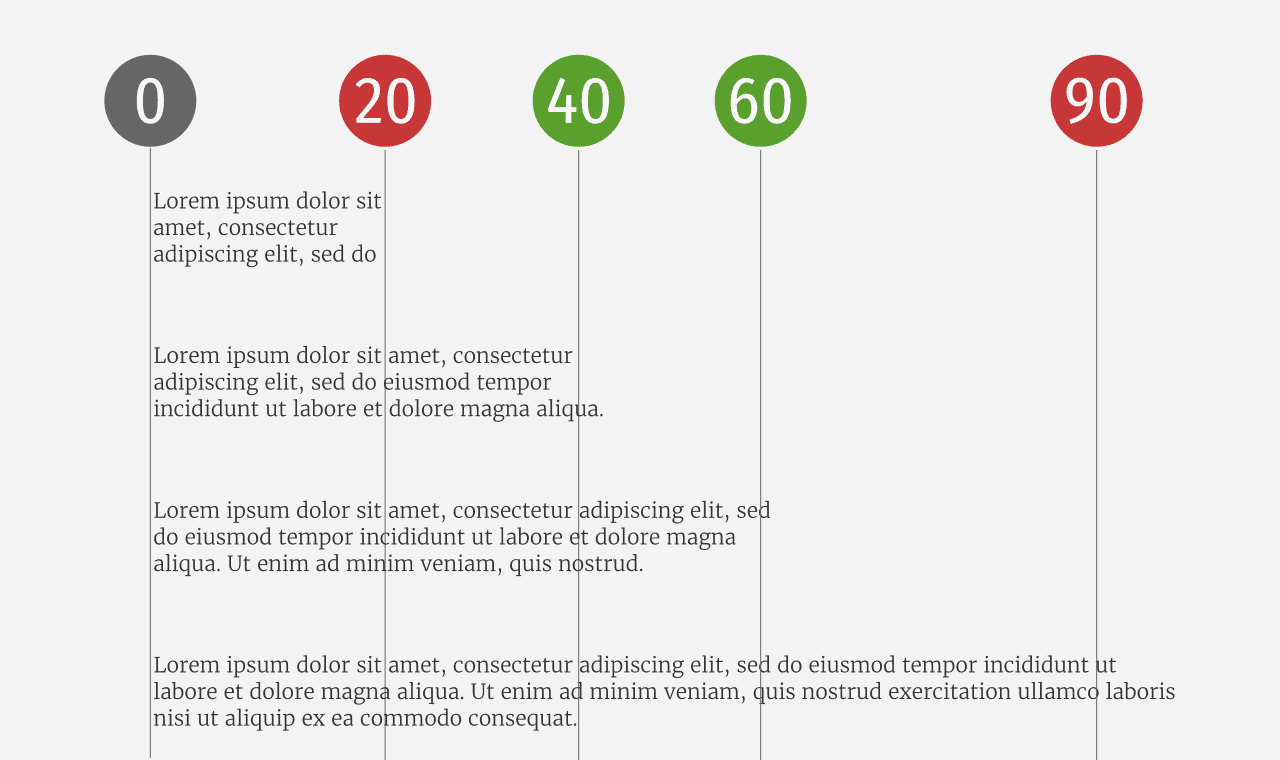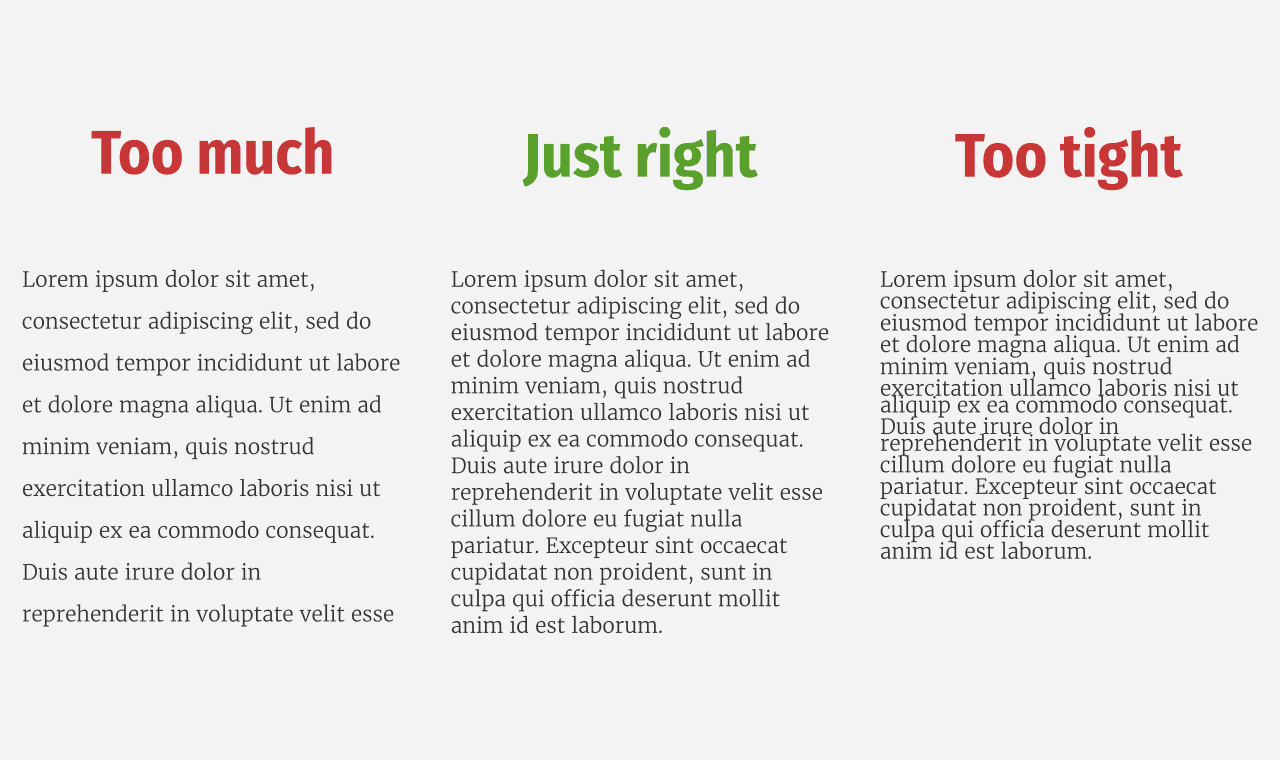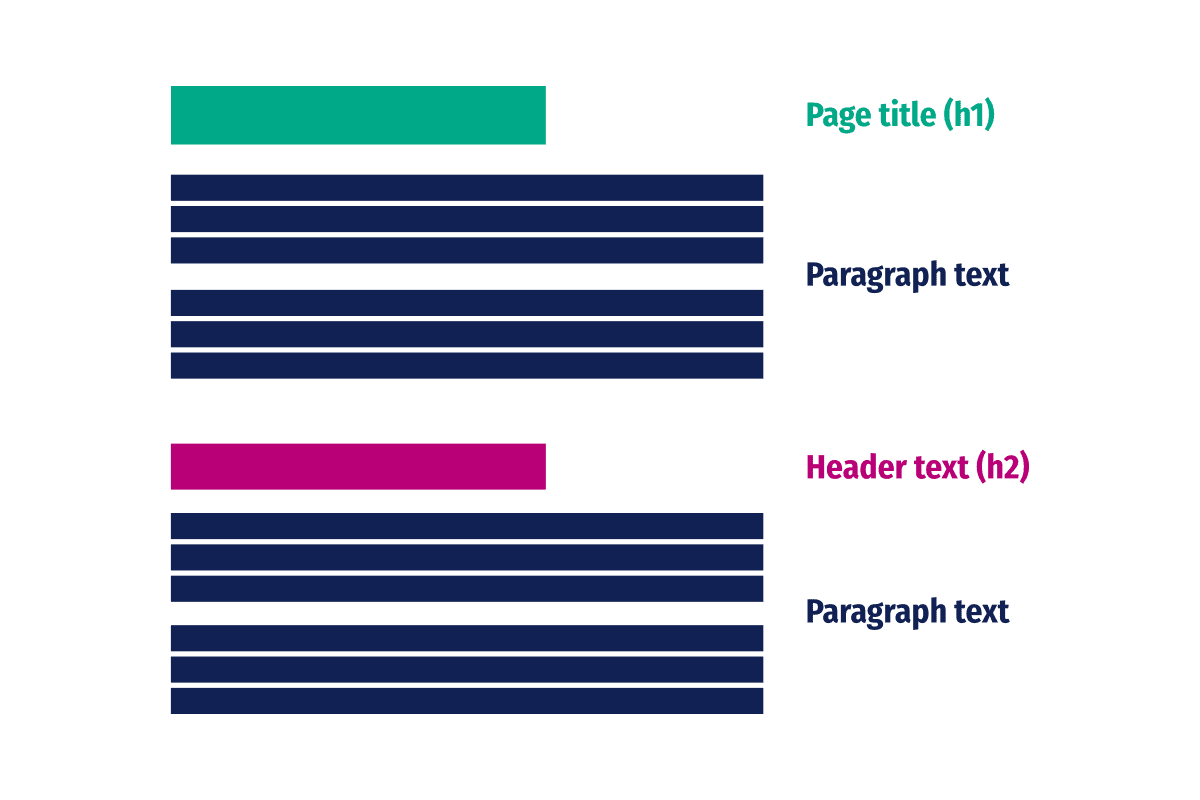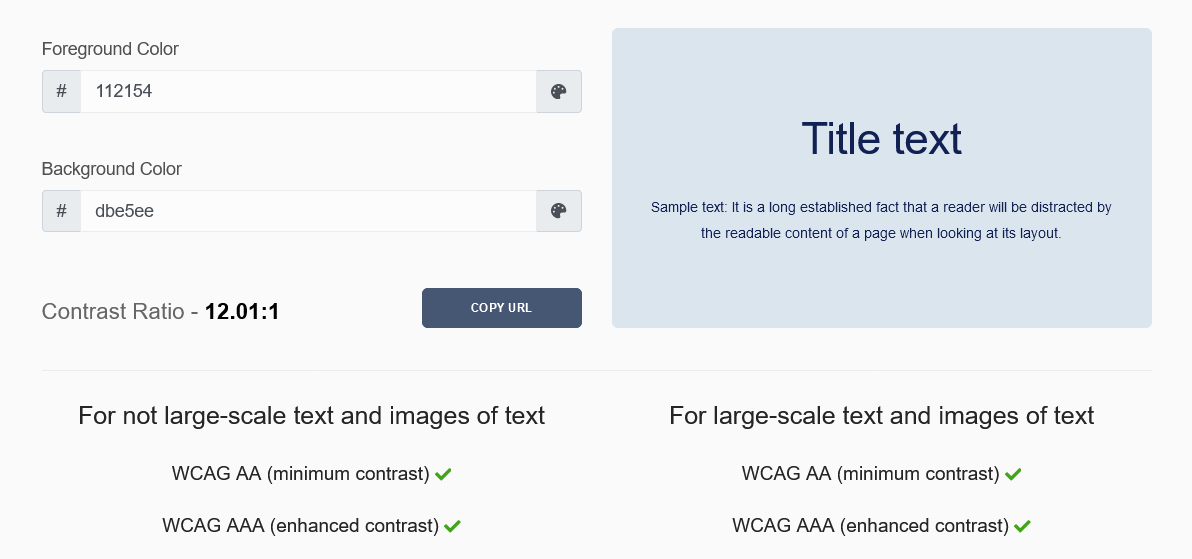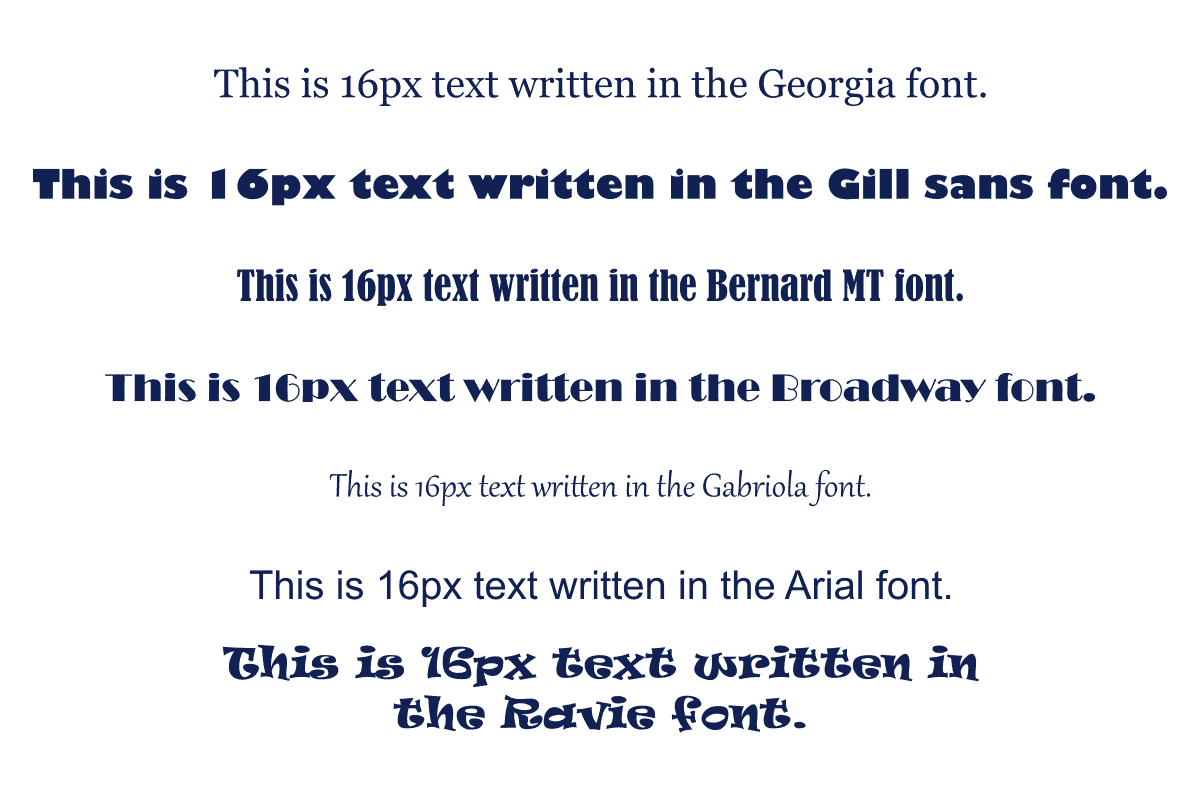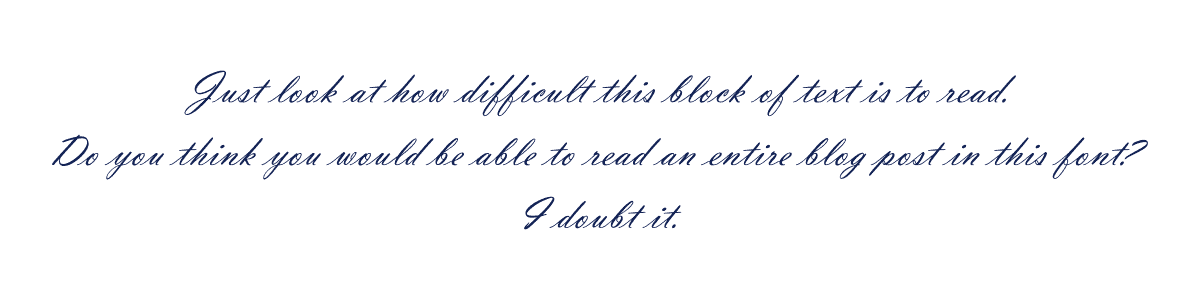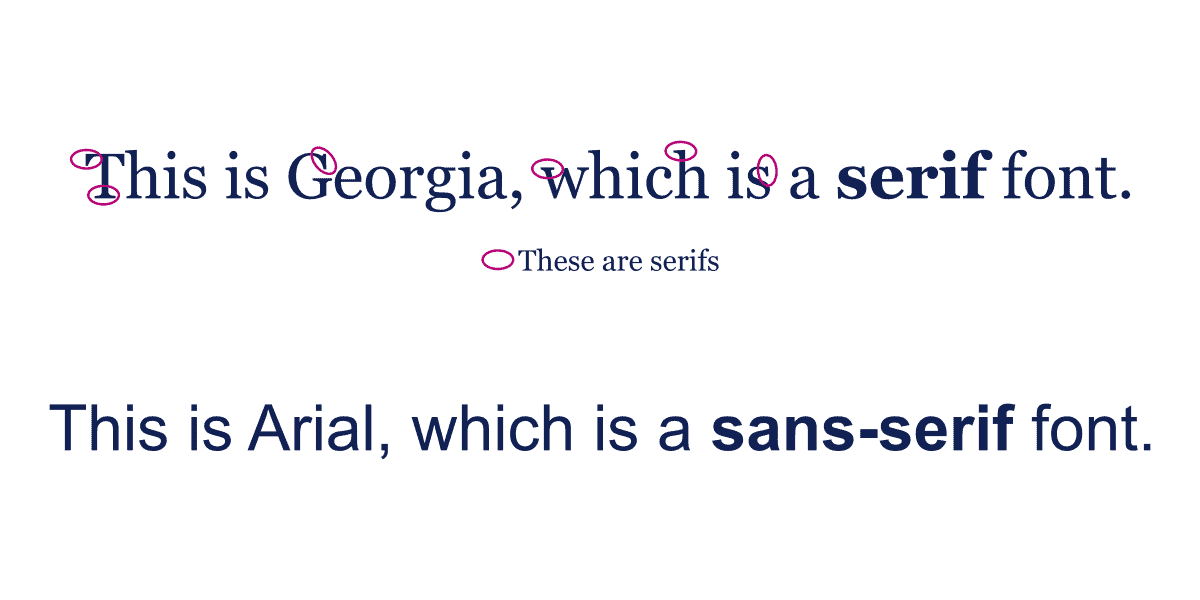
What’s In A Font? Website Typography Best Practices
I love web design and website typography is a huge part of that. It turns out that I'm somewhat of a typography nerd, so I wanted to share some of what I've learned in this regard here.
What is website typography?
Many people think that typography simply means the font (or font family) you choose for your website. But it’s much more than that. It’s the weight of the text, the width of the lines, the gaps between those lines. Basically it’s every facet of the text on your site.
Choosing the right font for your website is incredibly important, especially if your site has long form written content, like a blog. Those fonts will be seen by every one of your visitors to consume your content.
Type is the clothes your words wear.
I’ve tried to make the typography on this site the best it can be for an amateur like myself, but there’s definitely more I can do. Anyway, let’s start digging into the nuts and bolts of website typography, shall we?
Visual Hierarchy
Visual hierarchy is all a about arranging the different elements on a page so that readers can easily navigate their way around.
You have a gap between each line (known as line-height or leading), then a slightly larger gap between each paragraph. When using headings, it’s good to have an slightly larger gap at the top so that the heading breaks the content up into separate sections.
Here’s a diagram that explains what I mean in a more visual way:
As you can see the title, lines, paragraphs and section header are all distinct. Because of this, the page is naturally broken up into separate parts, which makes things flow better for the reader.
Visual hierarchy also helps with skim reading. Not many people read an entire post word for word; many skim through and pick the parts that are pertinent to them. By carving your posts up in this way you’re making skim reading much easier.
Distinguishing headers
It’s important to distinguish between your body text and header text. You can do this in a number of ways, some sites use a different font family (more on that later); whereas others, like me, use the same font everywhere, but use a different weight for headers.
By making the headers much larger than the body font, and a heavier weight, it’s easy to distinguish between the body text and headers, even though I’m using the same font everywhere.
By the way, if you’re interested, I’m using Fira Sans Condensed on this site.
Choosing the right fonts
Choosing the right fonts for your website typography is extremely important. If you get them wrong your content will not only look bad, but your readers will find it difficult to read.
If you get this really wrong, you could actually be damaging your reader’s eyes. So yeah, it’s pretty important.
Serif vs sans serif
So what is the difference between serif and sans serif when we’re talking about fonts?
Well, serifs are the little embellishments that you see at the end of some letters. The word “sans” is French for “without”. So sans serif literally means fonts without serifs.
So should I use serif or sans serif for my content?
That’s a great question, dear reader. And the answer is use whatever you like. From the research I’ve done, there doesn’t appear to be any hard and fast rules about which style of font is better for websites.
Want to use one of each? Go for it. Want to use all serif? Be my guest. Is all sans serif more your bag? Do it. It’s completely up to you.
Avoid script
I would like to caveat the above statements about using which ever fonts you like with the following:
DO NOT USE SCRIPT FONTS!
Script fonts are for decorative purposes and don’t really work for website typography. There are some exceptions to this, of course, but the general rule of thumb is to avoid script fonts if at all possible.
How many fonts?
The recommendation for the number of fonts you should use is quite simple - use a maximum of 2 fonts. Any more than this can be confusing for the reader and ruin the flow of your content.
I use Fira Sans Condensed across the entire site here, but I have also done a mixture of sans-serif for headers and serif for body text. This also works well.
I would not recommend using two different sans-serif or serif font together though. They can compete with one another and it makes the whole thing look wrong.
If you’re going to fonts, make sure they’re either completely different, or they’re from the same family. For example:
- Fira Sans Condensed & Merriweather.
- Arial and Georgia.
- PT sans and PT serif.
- Merriweather and Merriweather sans.
- Roboto and Roboto slab.
Web fonts
When declaring which fonts you want to use for your website typography, your visitors will need to have that font installed on their system in order for it to display.
Obviously most of my readers won’t have Fira Sans Condensed installed on their system. That’s where web fonts come in.
Conclusion
I’ve really enjoyed learning about website typography, and I think as a result of my research the experience on this site should have improved.